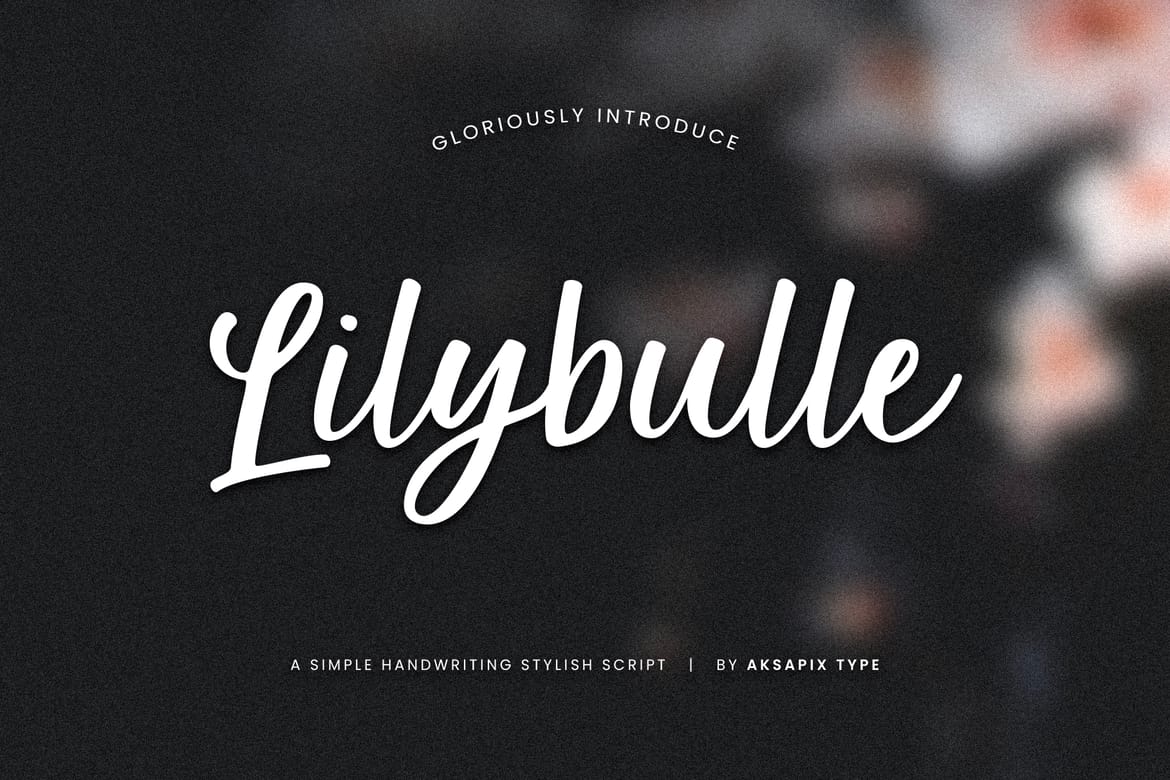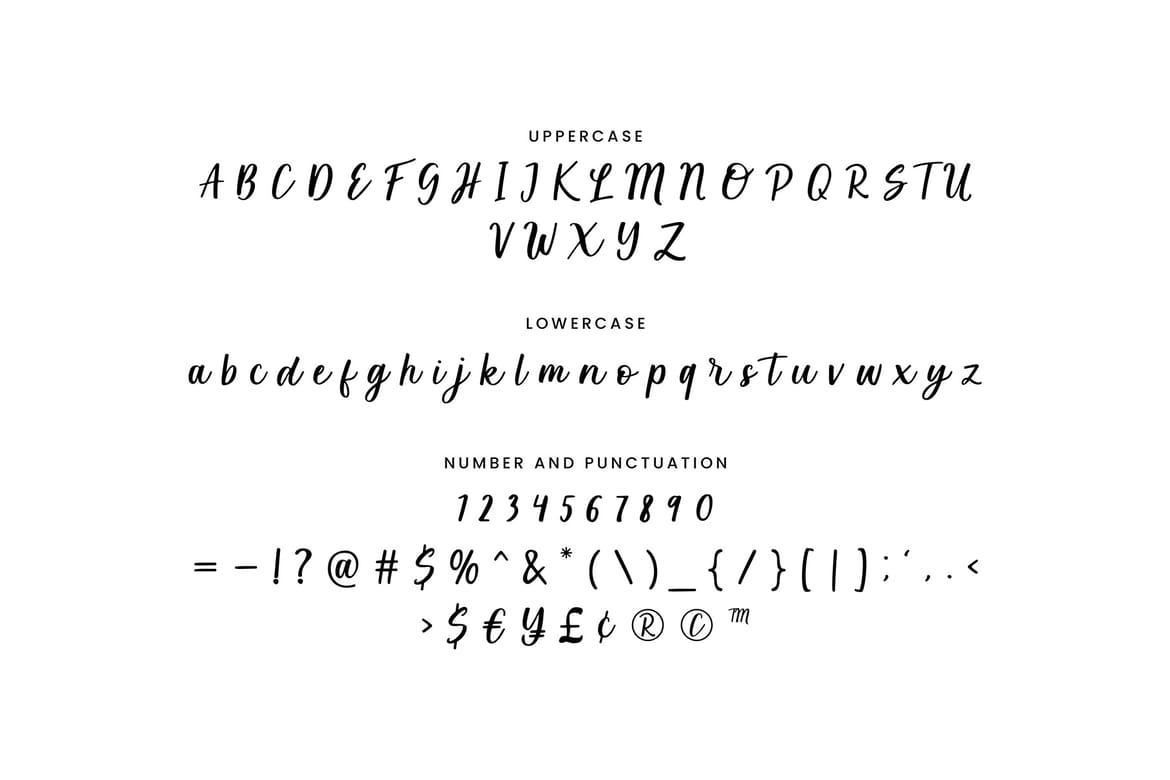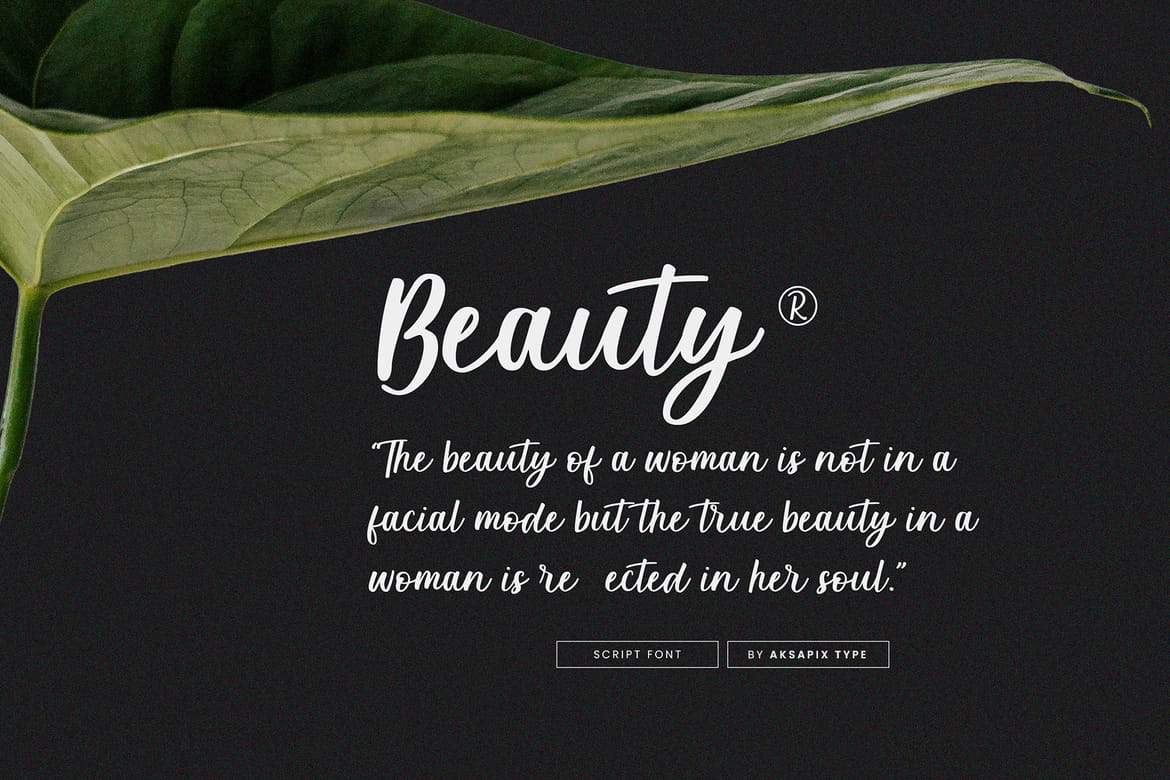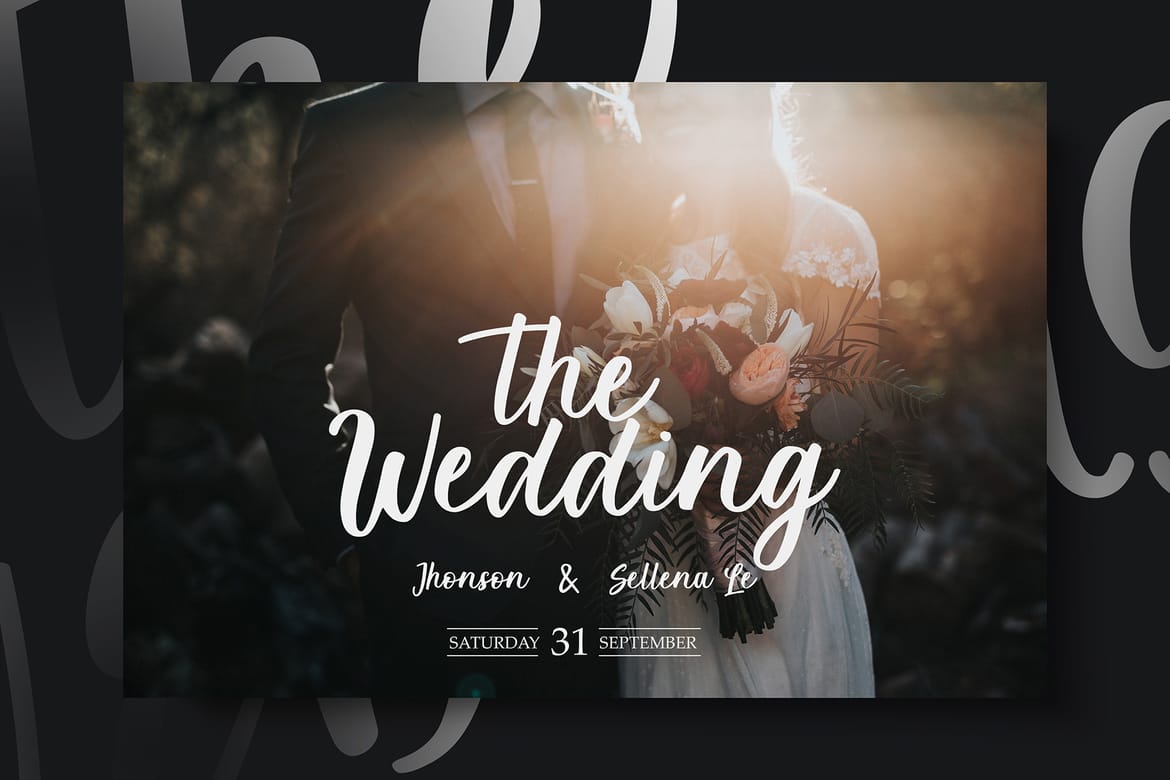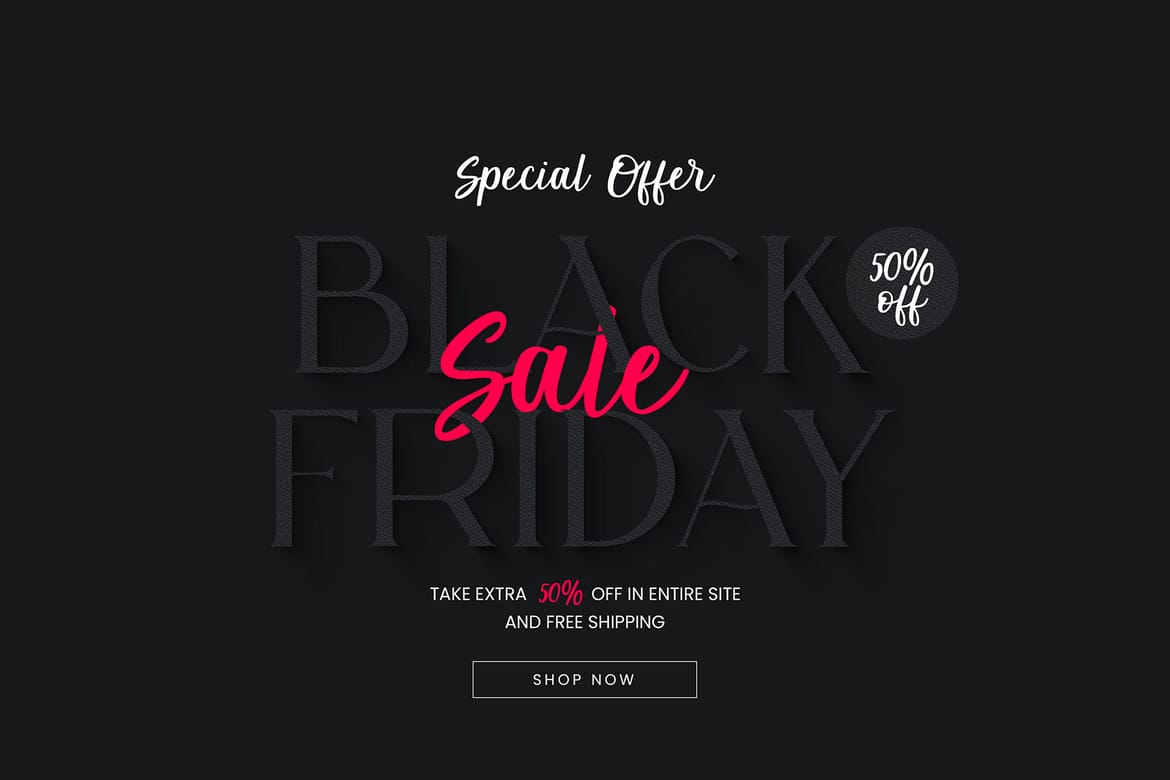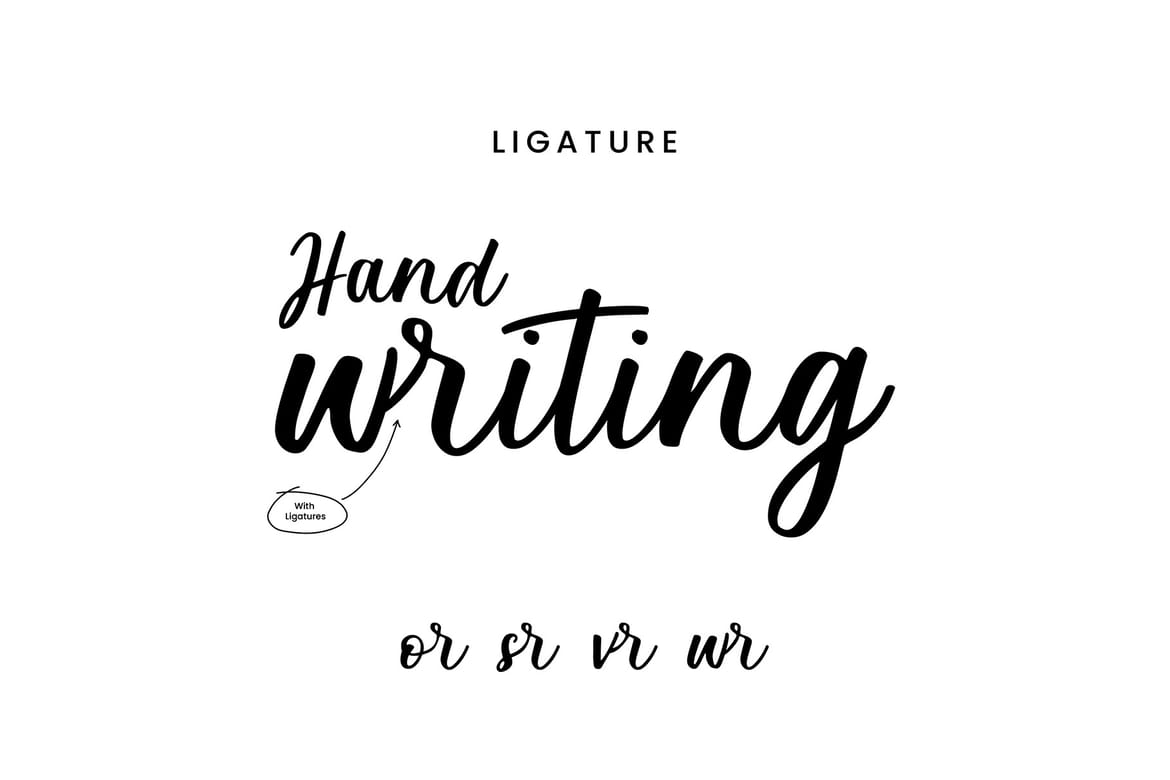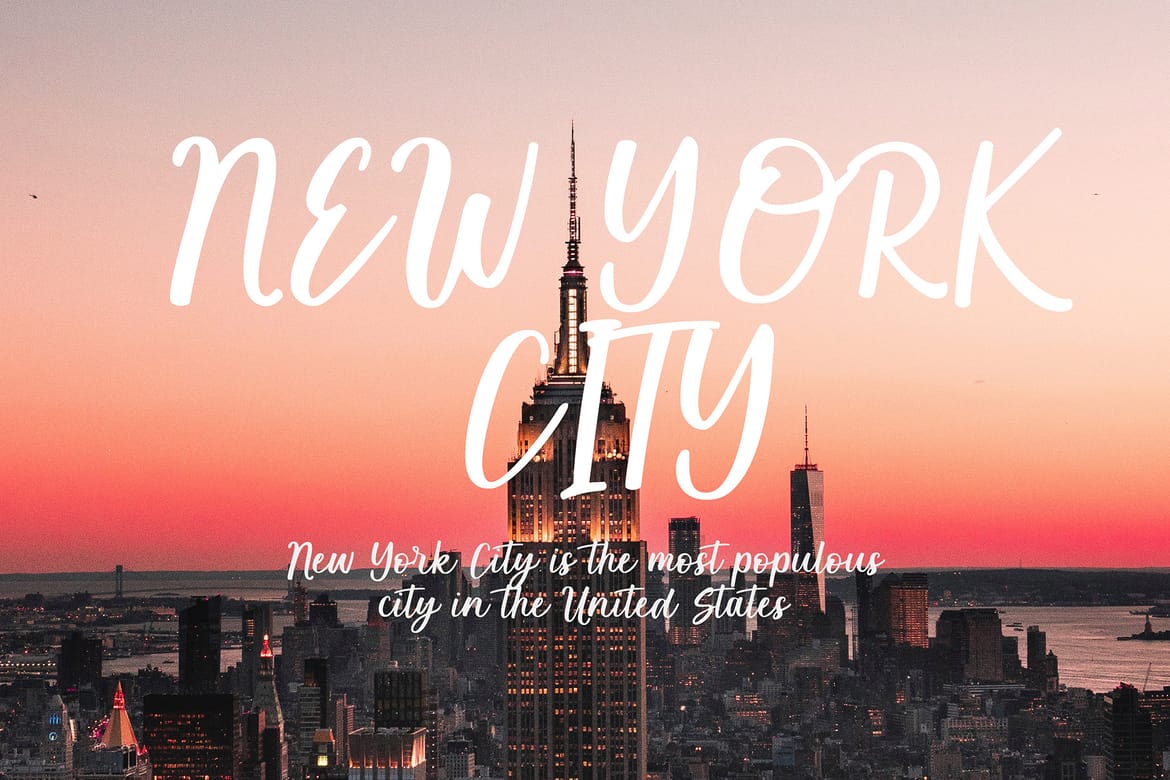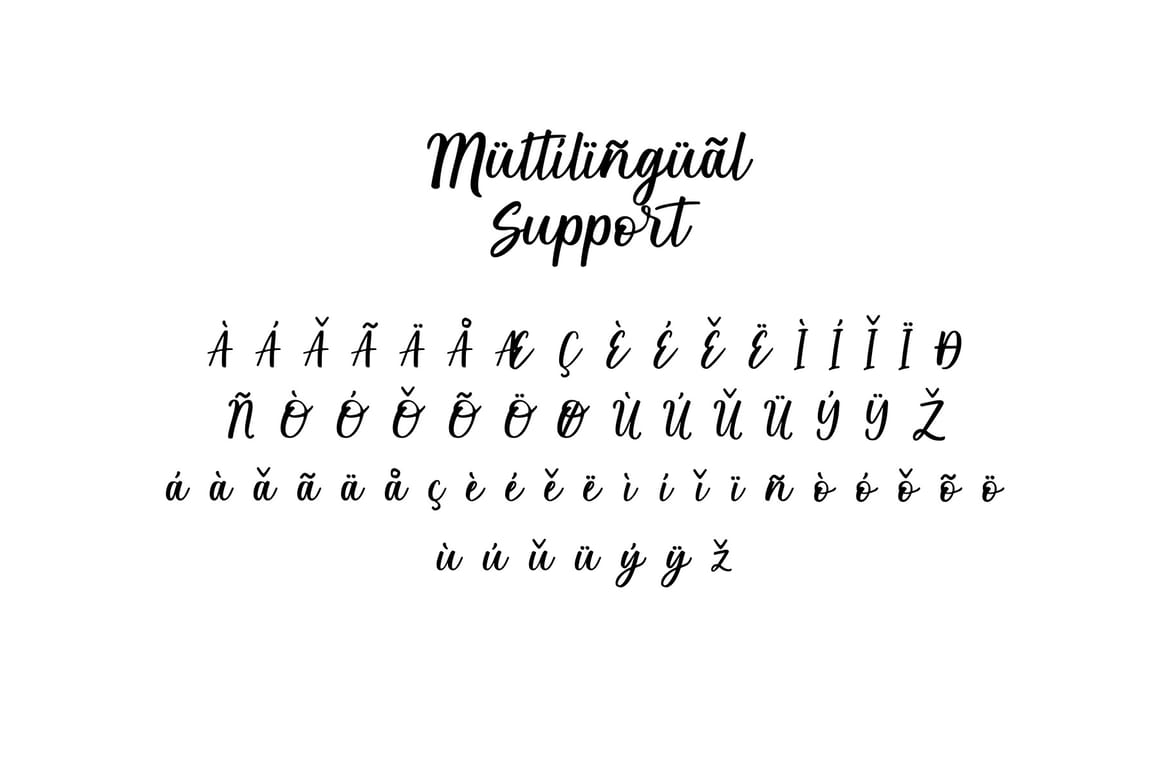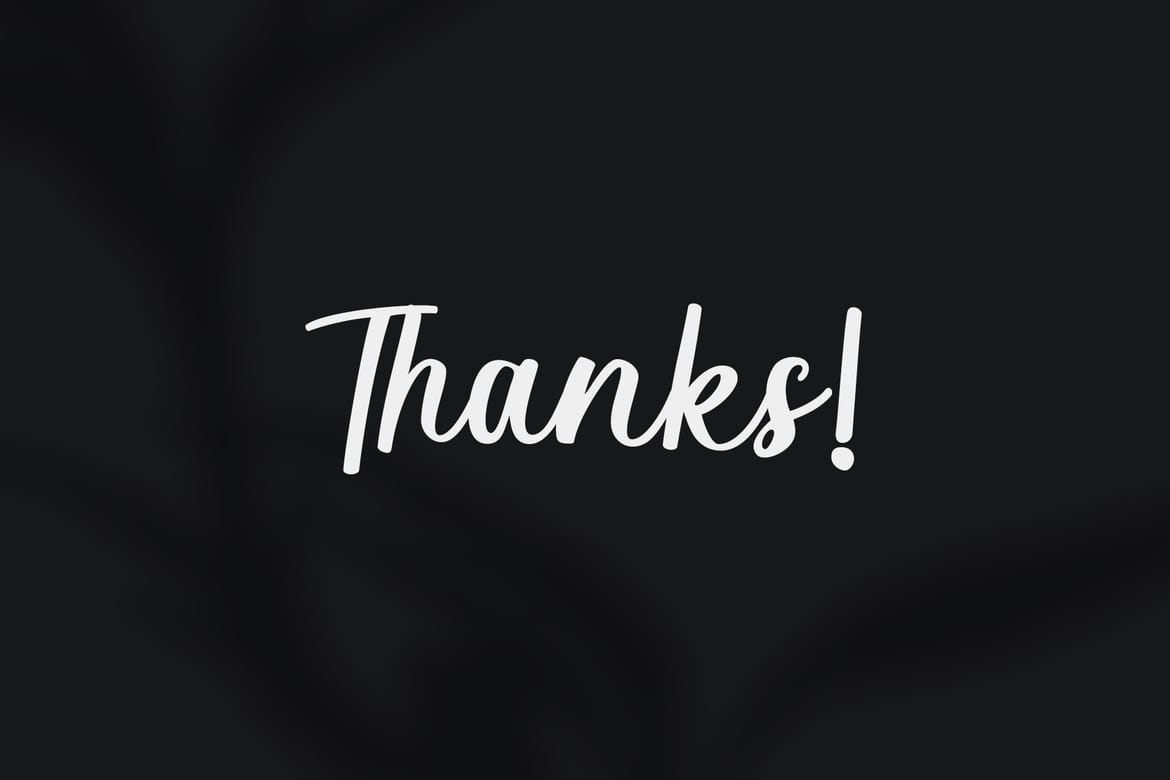
Lilybulle - Simple Handwriting Stylish Script is an exquisite font that effortlessly blends simplicity with elegance. Crafted in a stylish handwriting script, this font adds a touch of charm to a myriad of design projects. Ideal for various purposes, including logos, wedding invitations, greeting cards, and social media designs, Lilybulle brings a sense of sophistication to your creative endeavors.
Elevate your designs with Lilybulle's timeless appeal, making your projects stand out with a touch of handwritten elegance. Experience the seamless blend of simplicity and style in every stroke of Lilybulle's script.